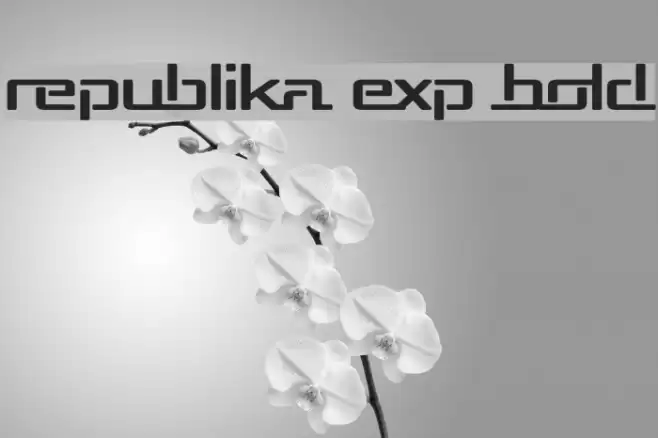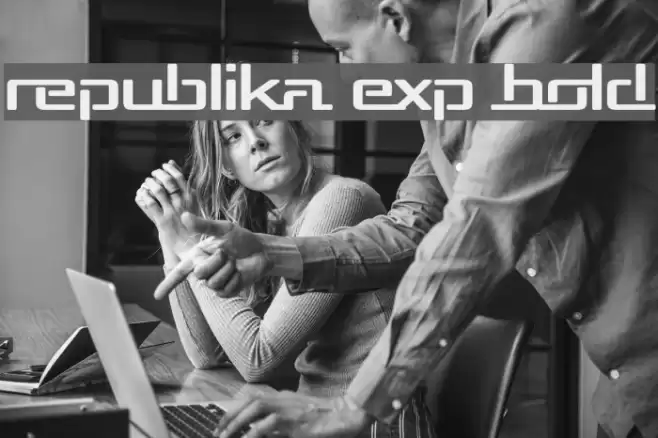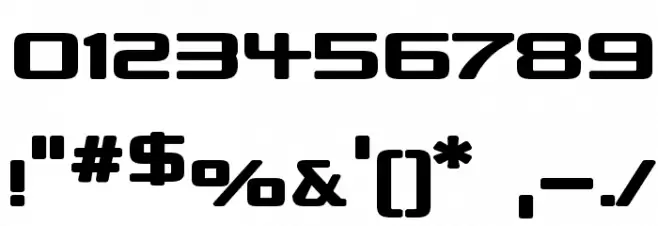
Republika Exp Bold Font
Republika Exp Bold Description
This font features a bold and modern design with a geometric and futuristic aesthetic. The characters are structured with clean, straight lines and rounded edges, giving it a sleek and contemporary look. The uppercase and lowercase letters maintain a consistent height, contributing to a uniform appearance. The numerals and special characters are designed to match the overall style, ensuring a cohesive visual experience. This font is ideal for projects that require a strong, impactful presence with a touch of modernity.
A bold, geometric font with a modern and futuristic style from Uncategorized fonts.
- Proposed Projects: Ideal for technology branding, modern advertising, futuristic posters, and digital interfaces.
- Use Case: Headlines, Logos, Digital Interfaces